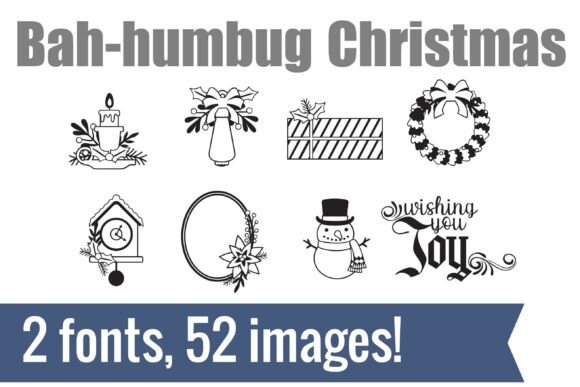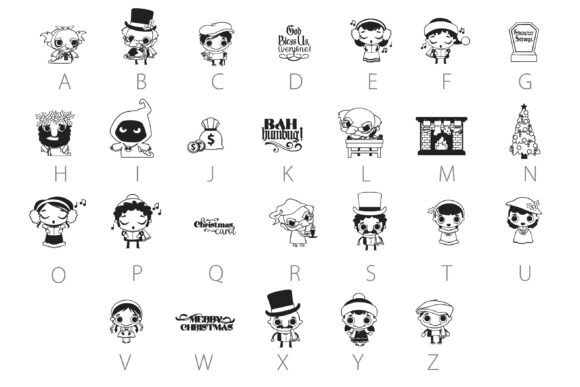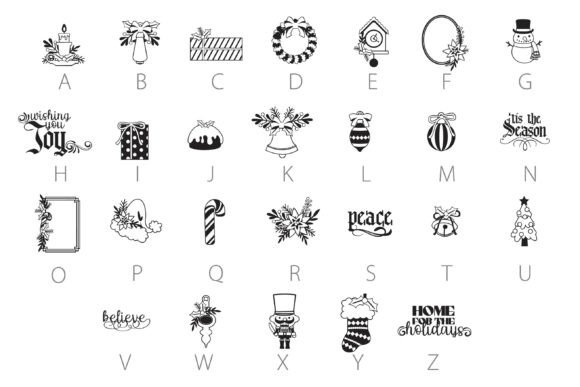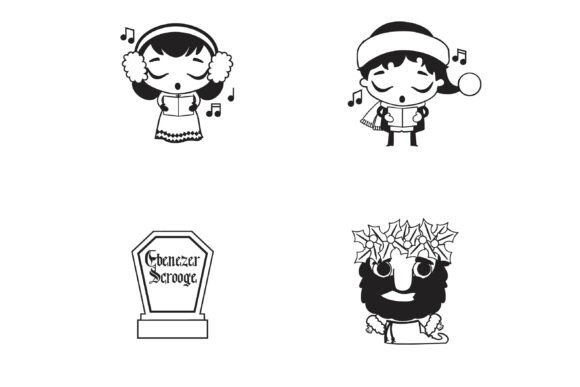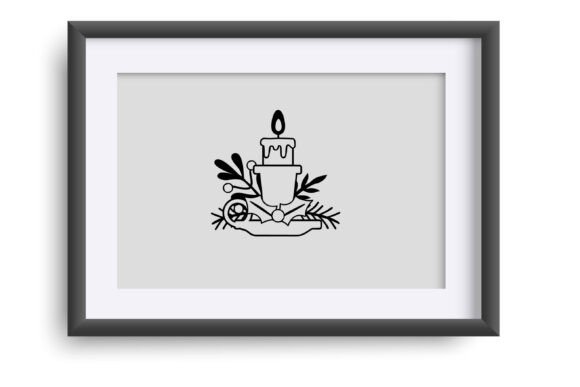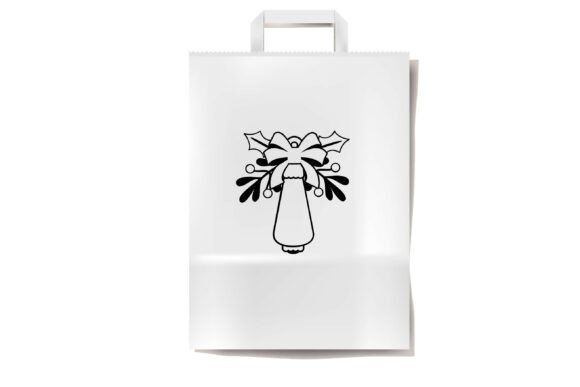
Deck the Halls with a Touch of Literary Magic
As the holiday season approaches, we often find ourselves searching for the perfect way to capture the essence of the season. Whether it’s a festive design for a holiday card or a unique playbill for a literary production, the right font can make all the difference. That’s where the Bah-humbug Dingbats Font comes in – a delightful collection of typefaces that brings the beloved characters of Charles Dickens’ A Christmas Carol to life.
This charming font set is more than just a decorative tool – it’s a narrative package that allows designers to tell a story and celebrate the true spirit of Christmas. With 52 expressive glyphs of key figures, including Ebenezer Scrooge and Tiny Tim, the Bah-humbug Dingbats Font provides a fun and recognizable way to pay homage to the classic tale. For designers looking to add a touch of literary magic to their holiday projects, this font is an absolute must-have.
Bah-humbug Dingbats Font Key Features
- Font Family: Bah-humbug Dingbats
- Unique Characteristics: Includes a wide range of dingbat characters, ornaments, and festive icons, making it perfect for holiday-themed designs and projects
Bah-humbug Dingbats Font Review
I recently had the chance to work with the “Bah-humbug Dingbats Font” and here’s my honest take on it. ✨ One of the things that really stood out to me was the font’s unique, festive flair. The dingbats and ornaments that come with the font are incredibly detailed and add a touch of whimsy to any design project.
Another aspect that I appreciated was the font’s flexibility. It’s suitable for a wide range of applications, from holiday-themed print materials to social media graphics. The font also comes with a variety of weights and styles, which made it easy to find the perfect fit for my design needs.
- Limited character set: The font only includes a limited number of characters, which may not be suitable for projects that require a full alphabet or special characters.
- Lack of OpenType features: The font does not support advanced OpenType features, which may limit its use in more complex design projects.
Overall, I was impressed with the “Bah-humbug Dingbats Font”. While it may have some limitations, its unique style and flexibility make it a great choice for holiday-themed design projects. I would definitely consider using it again in the future.
The Bah-humbug Dingbats Font is perfect for adding a touch of whimsy to your designs. Use it for:
- Christmas and holiday-themed designs
- Quirky and playful branding
Remember to use the font in moderation and balance it with other fonts and design elements to avoid overwhelming your design.